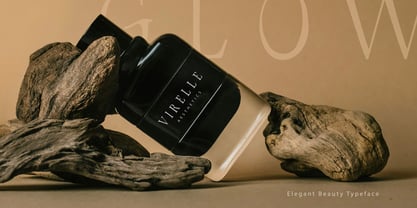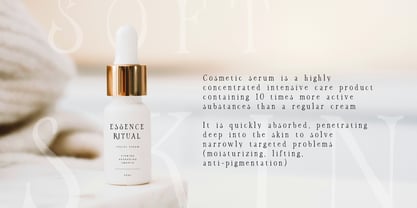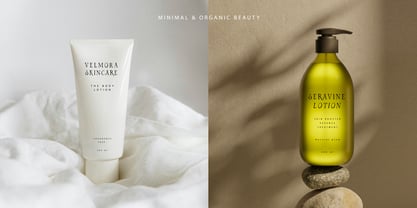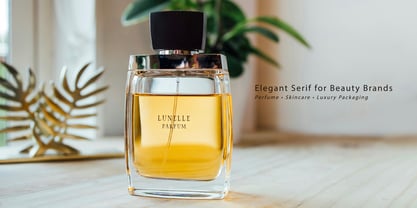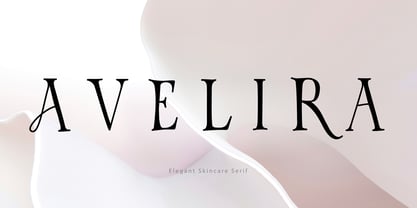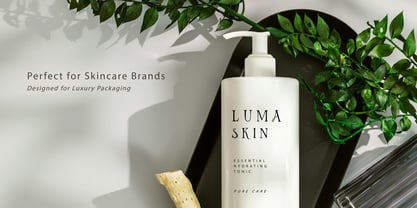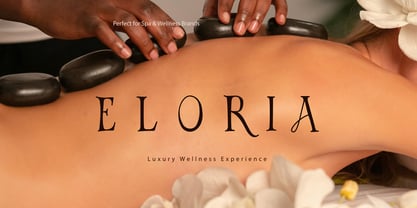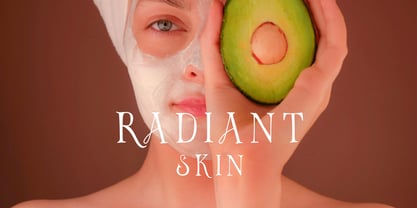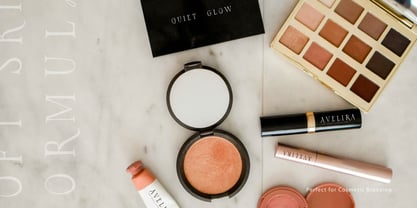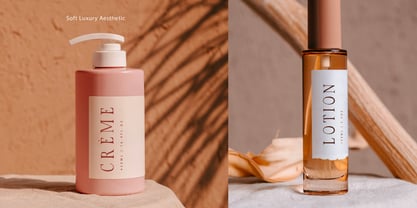
Avelira
AVELIRA is an elegant high-contrast serif crafted for luxury beauty branding and sophisticated editorial design.
Inspired by premium skincare packaging, boutique perfume labels, spa identities, and minimalist cosmetic campaigns, Avelira combines delicate curves with refined serif structures to create a timeless feminine aesthetic.
Its graceful proportions and distinctive character details make it ideal for logos, packaging, social media branding, magazines, websites, invitations, product photography, and premium marketing materials.
The font was designed to feel soft, luxurious, clean, and modern while maintaining strong visual personality across both large headlines and elegant brand presentations.
Perfect for:
• Skincare branding
• Cosmetic packaging
• Perfume labels
• Spa & wellness identities
• Luxury logos
• Editorial typography
• Beauty campaigns
• Fashion branding
• Feminine design projects
• Social media templates
• Boutique packaging
• Minimal aesthetic branding
AVELIRA works beautifully in both minimalist layouts and richly styled luxury presentations.
Features
• Uppercase letters
• Lowercase letters
• Numbers & punctuation
• International support
• Elegant alternates
• Ligatures
• High-contrast serif design
• Luxury beauty aesthetic